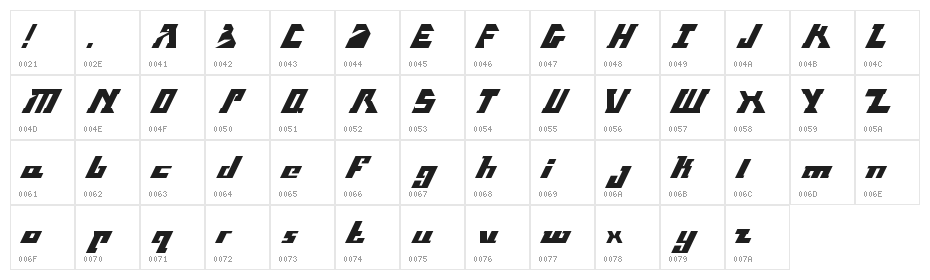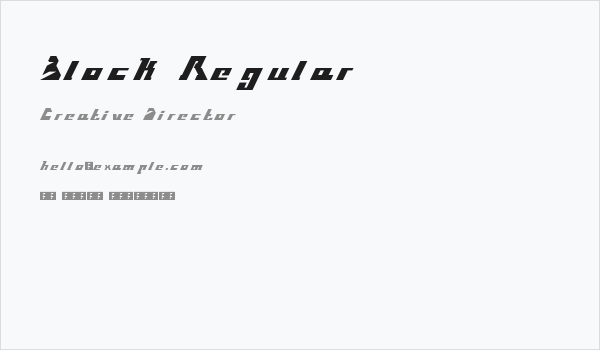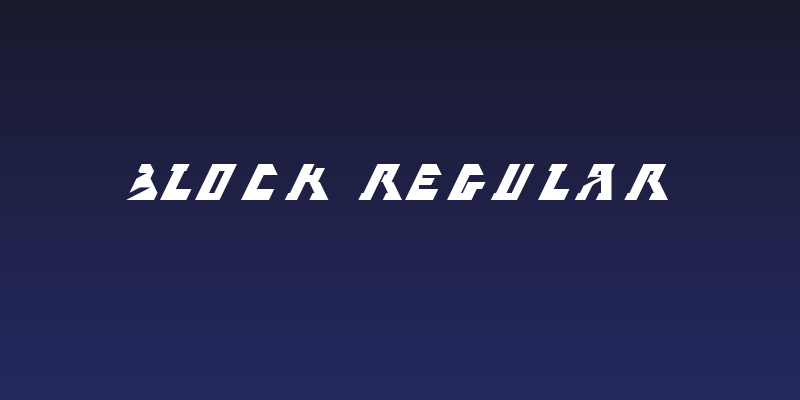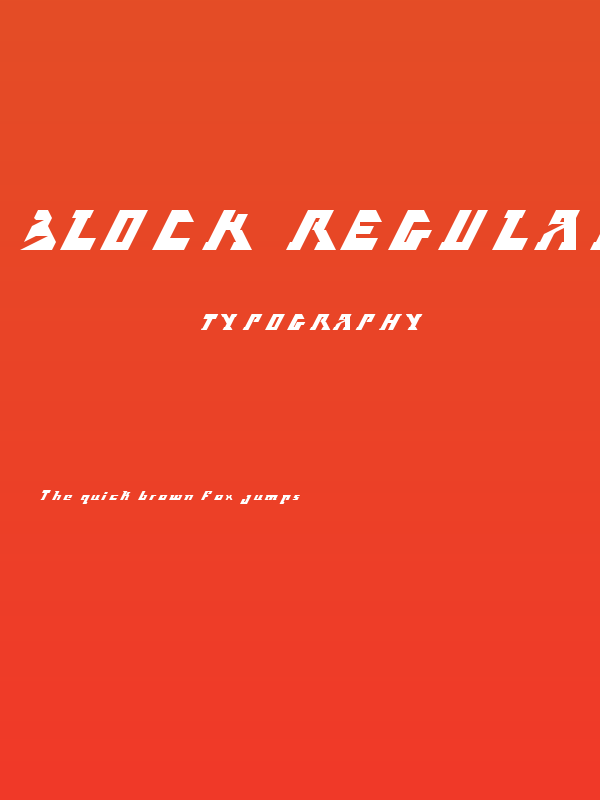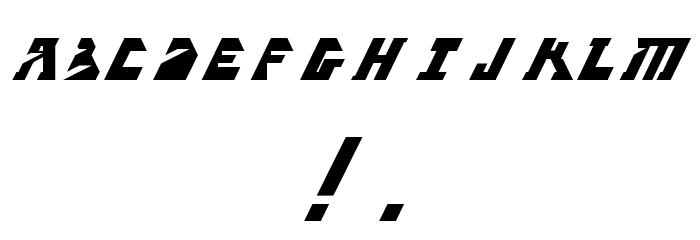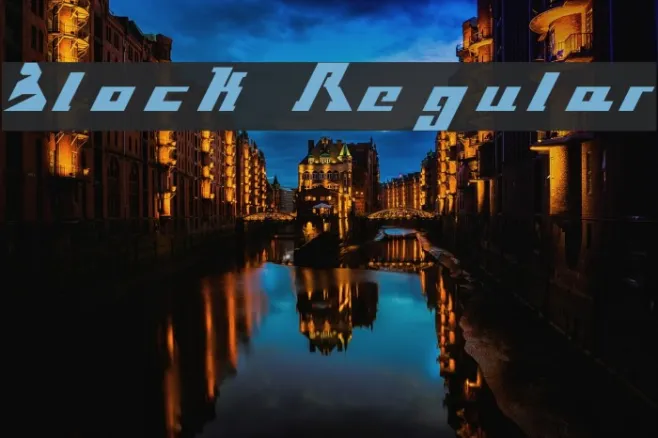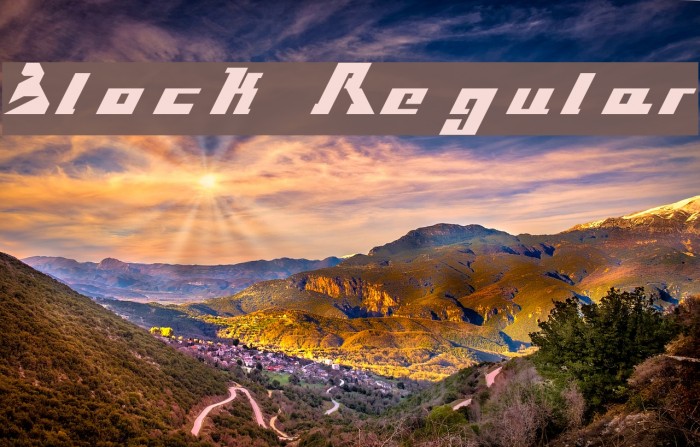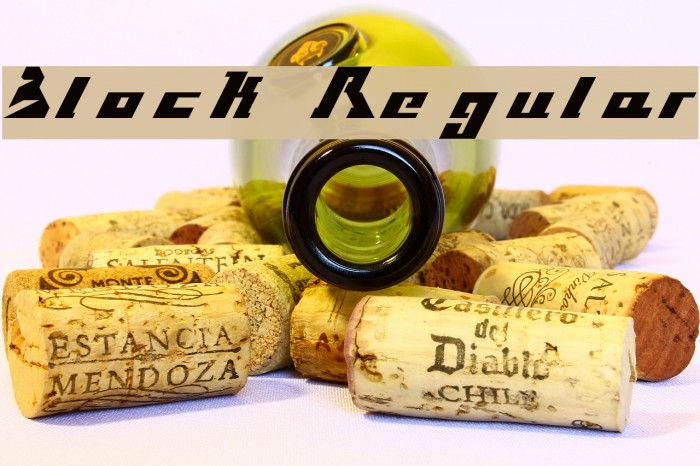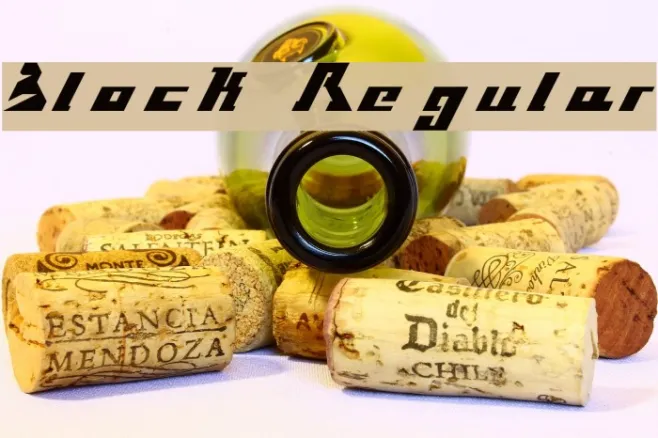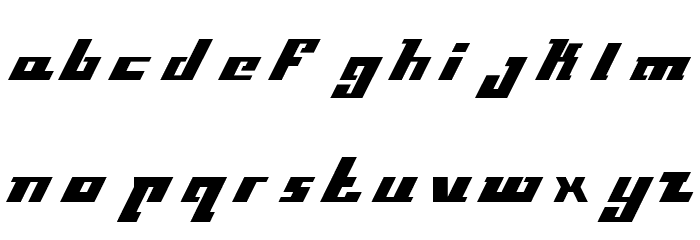
Block Regular Font
Block Regular Description
This font features a bold and angular design, characterized by its sharp edges and geometric shapes. The uppercase letters are particularly striking, with a strong presence and a sense of movement, almost as if they are leaning forward. The lowercase letters maintain the same angular style, creating a cohesive look throughout. The numbers and special characters are equally bold, ensuring consistency across all text elements. This font's unique style makes it stand out, offering a modern and edgy aesthetic that is both eye-catching and memorable.
| Proposed Projects | Ideal for branding, posters, and any project requiring a strong, modern aesthetic. |